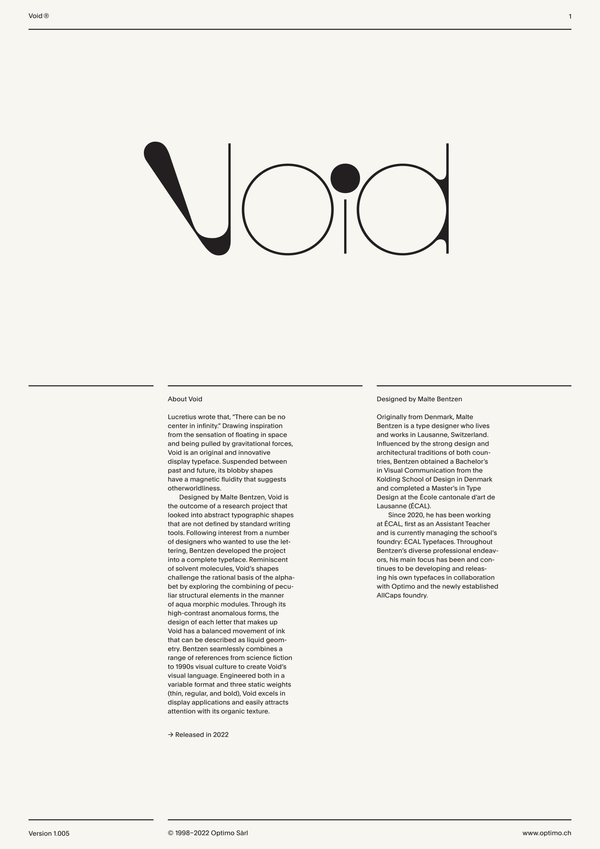
Void Variable
Contextual Alternates
Contextual Alternates [calt]
This feature adapts the position of a glyph after its surrounding context. For instance, a dash placed between two uppercase letters or numbers will be replaced by an uppercase version of the dash, slightly higher. This feature is usually active by default in Adobe applications.
Alternate A M V W i m r v w
Stylistics Set 1 [ss01]
This feature replaces glyph(s) with stylistic alternate(s).
Alternate C G c e 2 3 5 ¿ ?
Stylistics Set 2 [ss02]
Alternate O o
Stylistics Set 3 [ss03]
Fractions
With this feature, any numbers separated by a slash will automatically turn into a fraction. To fit in fraction configuration, numerals have been designed smaller and their weights have been adjusted to suit the typeface.
Lowercase math symbols
Stylistic Set 6 [ss06]
This feature activates alternate lowercase positioning of mathematical symbols.
This feature replaces any letter following a numeral with its matching superior letters. French language uses the ordinal indicators such as ‘er’ for 1er premier, while Spanish, Portuguese and Italian require the feminine and masculine ordinals ‘a,’ ‘o’ for 1º, 1ª. Ordinals are designed to match the weight of the typeface.
Slashed Zero
Slashed Zero [zero]
Originally created to avoid the confusion between the ‘0’ and the ‘O’, this feature substitutes all zeros in a selected text by a slashed form of the zero.
Multiply sign
Stylistic Set 20 [ss20]
This feature substitutes the letter “x” into the multiplication sign.
Numerators [numr]
This feature substitutes glyphs with their matching smaller alternates. The numerators are the same glyphs that are used to create fractions, their vertical position remains within the capital letters height. These glyphs are reduced in size and designed slightly heavier to keep them consistent with the rest of the font.
This feature substitutes glyphs with their matching smaller alternates and low position glyphs. The denominators are the same glyphs that are used to create fractions, their vertical position remains within the base line. These glyphs are reduced in size and designed slightly heavier to keep them consistent with the rest of the font.
Superscript/Superiors
This feature substitutes glyphs with their matching smaller alternates which are set slightly above the height of the capital letters. These glyphs are reduced in size and designed slightly heavier to keep them consistent with the rest of the font.
Subscript/Inferiors
Subscript / Inferiors [subs]
This feature substitutes glyphs with their matching smaller alternates which are set slightly below the baseline. These glyphs are reduced in size and designed slightly heavier to keep them consistent with the rest of the font.
Standard Ligatures
Standard Ligatures [liga]
Standard ligatures replaces a sequence of characters with a single ligature glyph, they are designed to improve kerning and readability of certain letter pairs.
Discretionary Ligatures
Discretionary Ligatures [dlig]
This feature activates discretionary ligatures which are specific to the typeface. It applies all other designed ligatures that are not classified as standard ligatures.
Designed by Malte Bentzen, Void is the outcome of a research project that looked into abstract typographic shapes that are not defined by standard writing tools. Following interest from a number of designers who wanted to use the lettering, Bentzen developed the project into a complete typeface. Reminiscent of solvent molecules, Void’s shapes challenge the rational basis of the alphabet by exploring the combining of peculiar structural elements in the manner of aqua morphic modules. Through its high-contrast anomalous forms, the design of each letter that makes up Void has a balanced movement of ink that can be described as liquid geometry. Bentzen seamlessly combines a range of references from science fiction to 1990s visual culture to create Void’s visual language. Engineered both in a variable format and three static weights (thin, regular, and bold), Void excels in display applications and easily attracts attention with its organic texture.